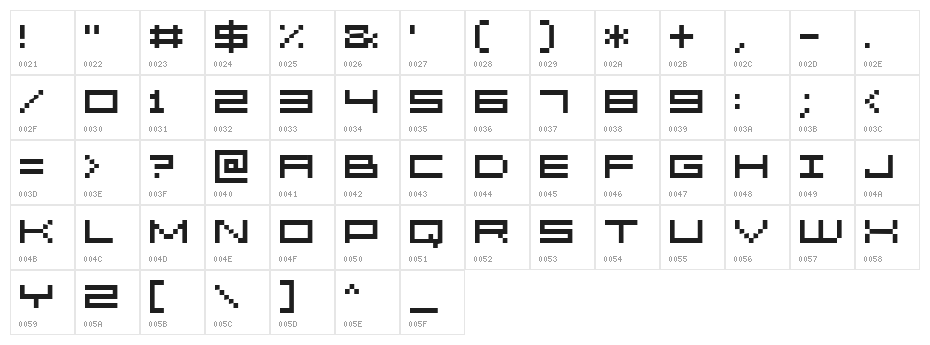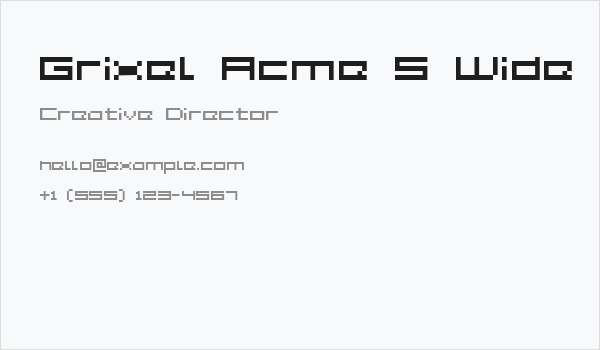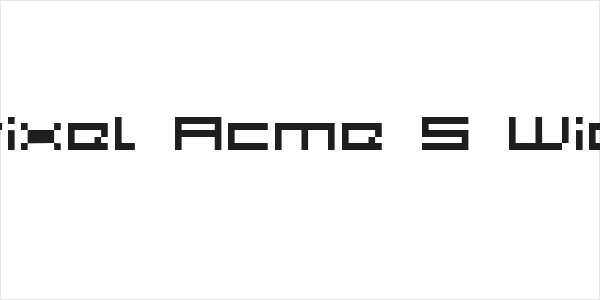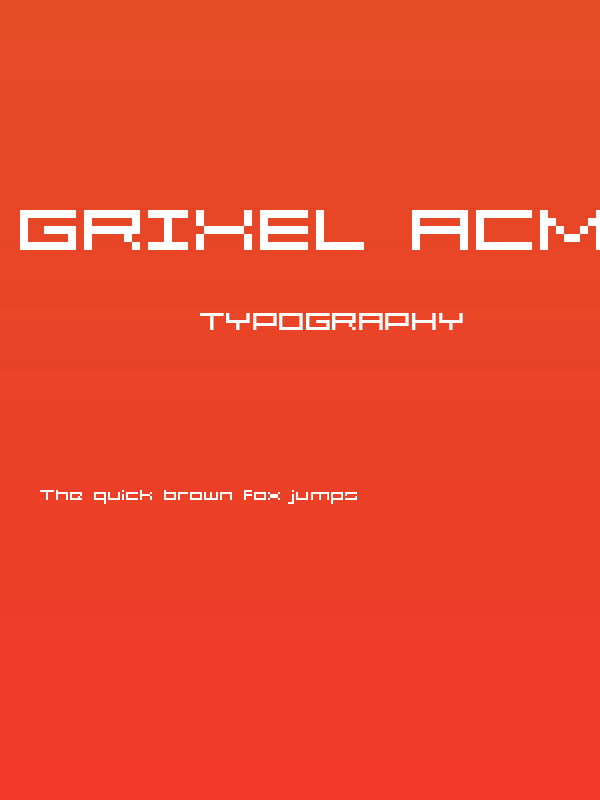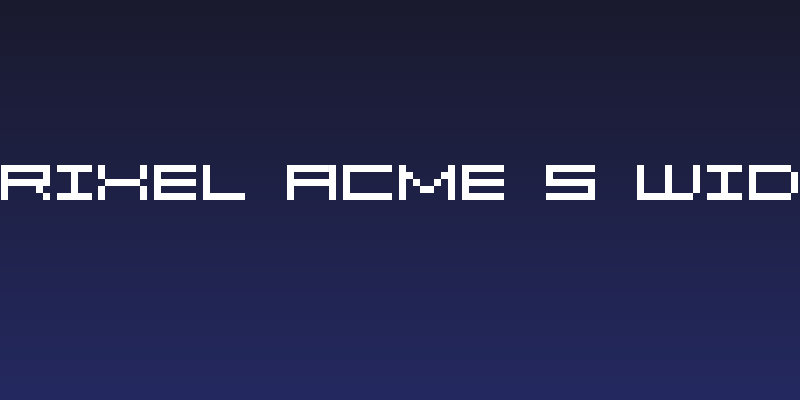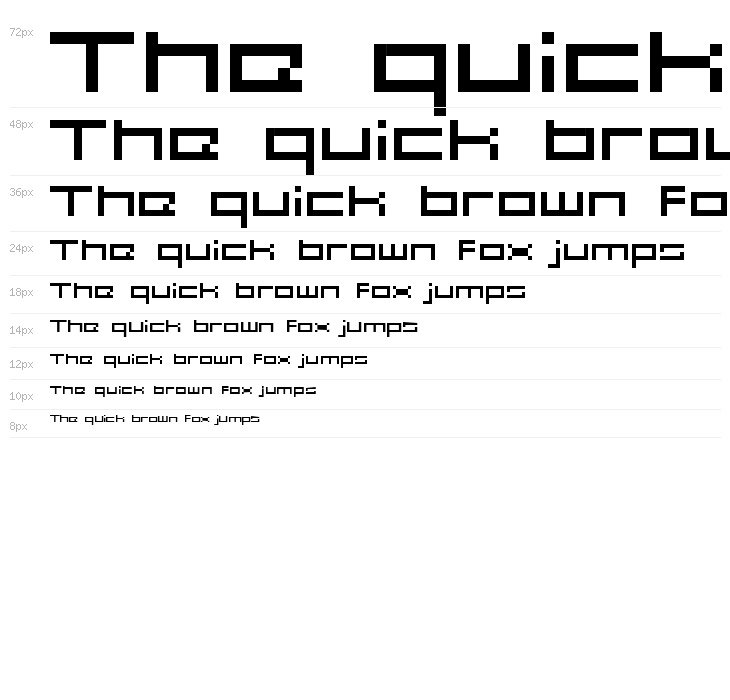
Grixel Acme 5 Wide Font
Grixel Acme 5 Wide Description
This font exhibits a distinct pixelated style, reminiscent of early digital displays and retro video games. Each character is constructed with a grid-like precision, giving it a blocky and geometric appearance. The uppercase and lowercase letters maintain a consistent height, contributing to a uniform look. The numerals and special characters follow the same pixelated design, ensuring a cohesive aesthetic across all elements. The font's structure is simple yet effective, making it highly legible even at smaller sizes. Its nostalgic charm and digital feel make it ideal for projects that aim to evoke a sense of retro technology or gaming culture.
Overall StyleRetro, Digital
Proposed ProjectsIdeal for retro video game designs, digital art projects, tech-themed posters, and nostalgic branding.